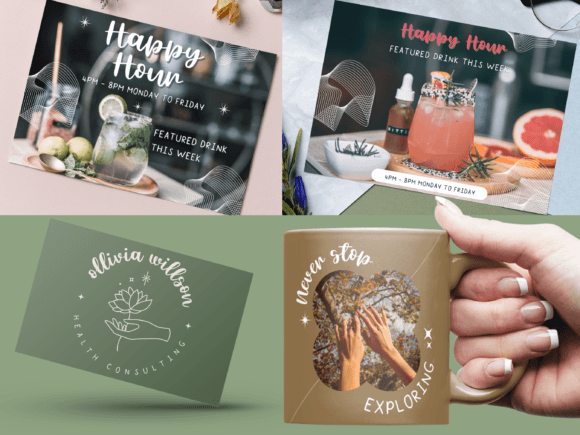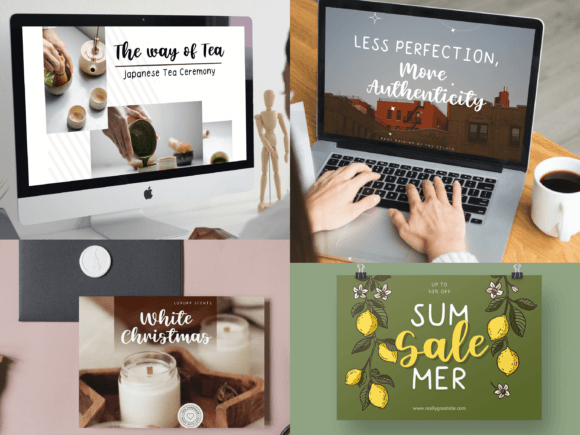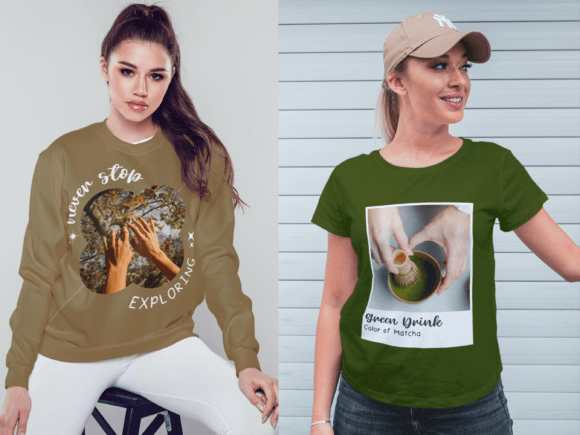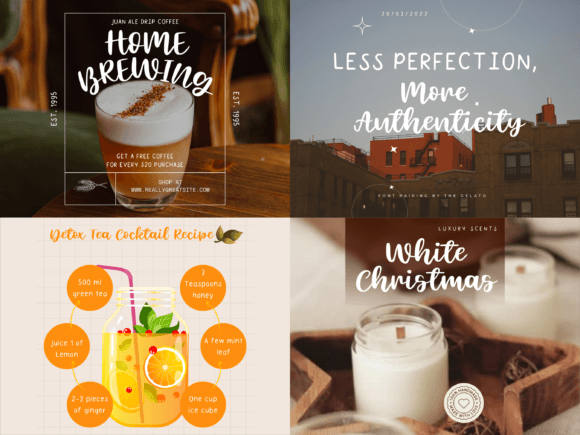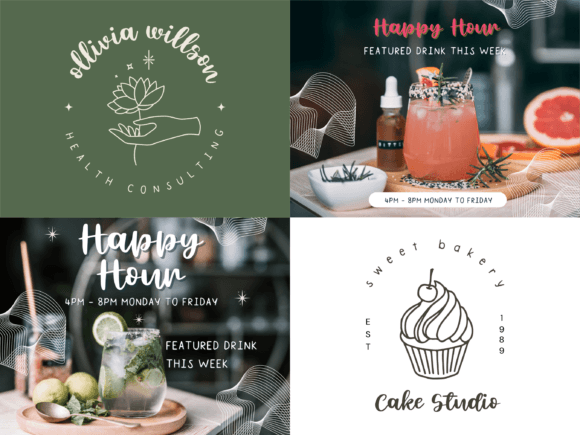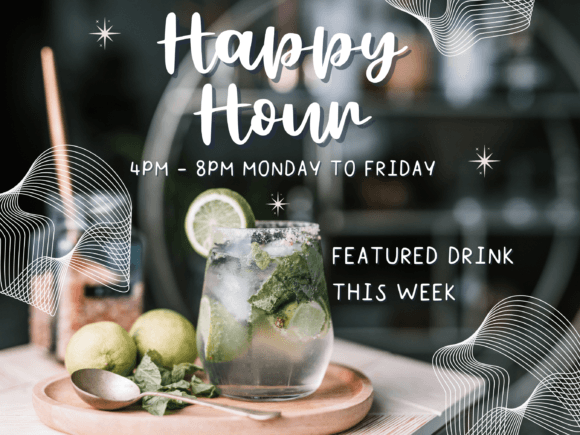
Introduction to Matcha Honey Lemon Font
Do you ever find yourself stuck in a creative rut, searching for the perfect font to elevate your design project? As a designer, you know how crucial it is to have a reliable go-to resource that can bring your vision to life. For those who crave a touch of luxury and sophistication, look no further than the stunning Matcha Honey Lemon Font.
This exquisite handwritten font is designed to capture attention with its unique blend of elegance and charm. Its delicate yet confident touch makes it perfect for adding a touch of high-quality refinement to any creative project, from branding to editorial work. Whether you’re a seasoned pro or just starting out, the Matcha Honey Lemon Font is a valuable addition to any design arsenal.
Key Features of Matcha Honey Lemon Font
- High-quality design resource for creative projects, offering a unique and refreshing aesthetic.
- Unique characteristics include a delicate balance of Asian-inspired motifs and modern typography, making it perfect for projects that require a touch of elegance and sophistication.
Honest Review: Matcha Honey Lemon Font
I recently had the chance to work with the Matcha Honey Lemon Font, a high-quality design resource that’s perfect for any creative project. This free download is a game-changer for designers like me who are always on the lookout for fresh and unique fonts.
- ✨ The font is highly customizable, with a wide range of styles and weights to choose from.
- ✨ The transparent background makes it easy to use in any design, without worrying about complicated backgrounds.
- ✨ The font is incredibly versatile, suitable for a wide range of creative projects, from logos to digital products.
- ⚠️ The font is not suitable for use in print materials, as it may not render as well on paper.
- ⚠️ The font’s unique style may not be to every designer’s taste, so be sure to check compatibility before using it in a project.
Overall, I’m thoroughly impressed with the Matcha Honey Lemon Font. It’s a high-quality design resource that’s perfect for any creative project. If you’re looking for a fresh and unique font to add some personality to your designs, this is definitely worth checking out.
The Matcha Honey Lemon Font is a high-quality, free download that can elevate your creative project to the next level. With its unique design and transparent background, this font is perfect for designers looking for a versatile resource.
Tips for Getting the Most Out of Matcha Honey Lemon Font
To get the most out of the Matcha Honey Lemon Font, try combining it with other design elements like illustrations and graphics. You can also experiment with different font sizes and colors to create unique and eye-catching designs.
The Matcha Honey Lemon Font is perfect for a variety of design projects, including:
- Business cards and stationery
- Wedding invitations and event graphics